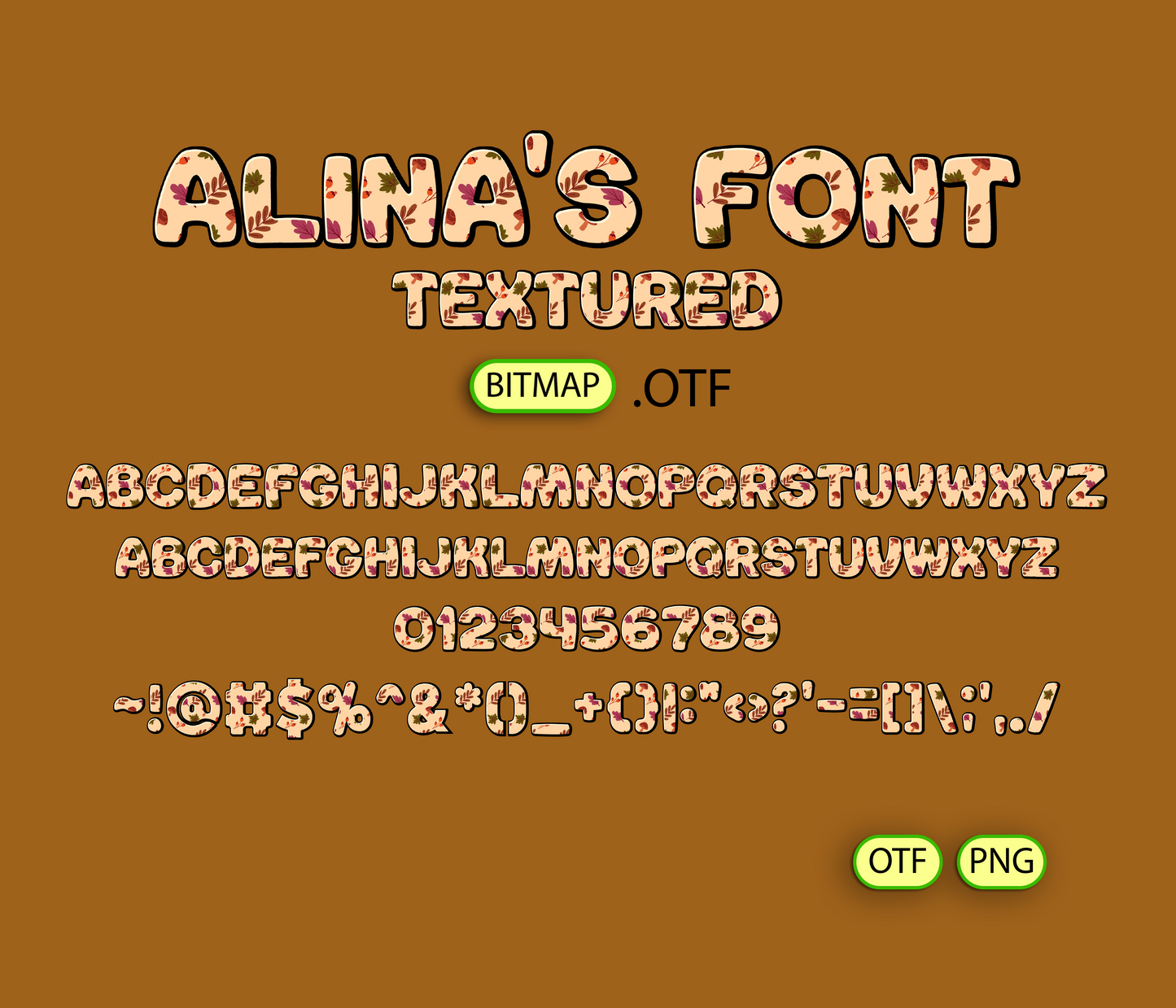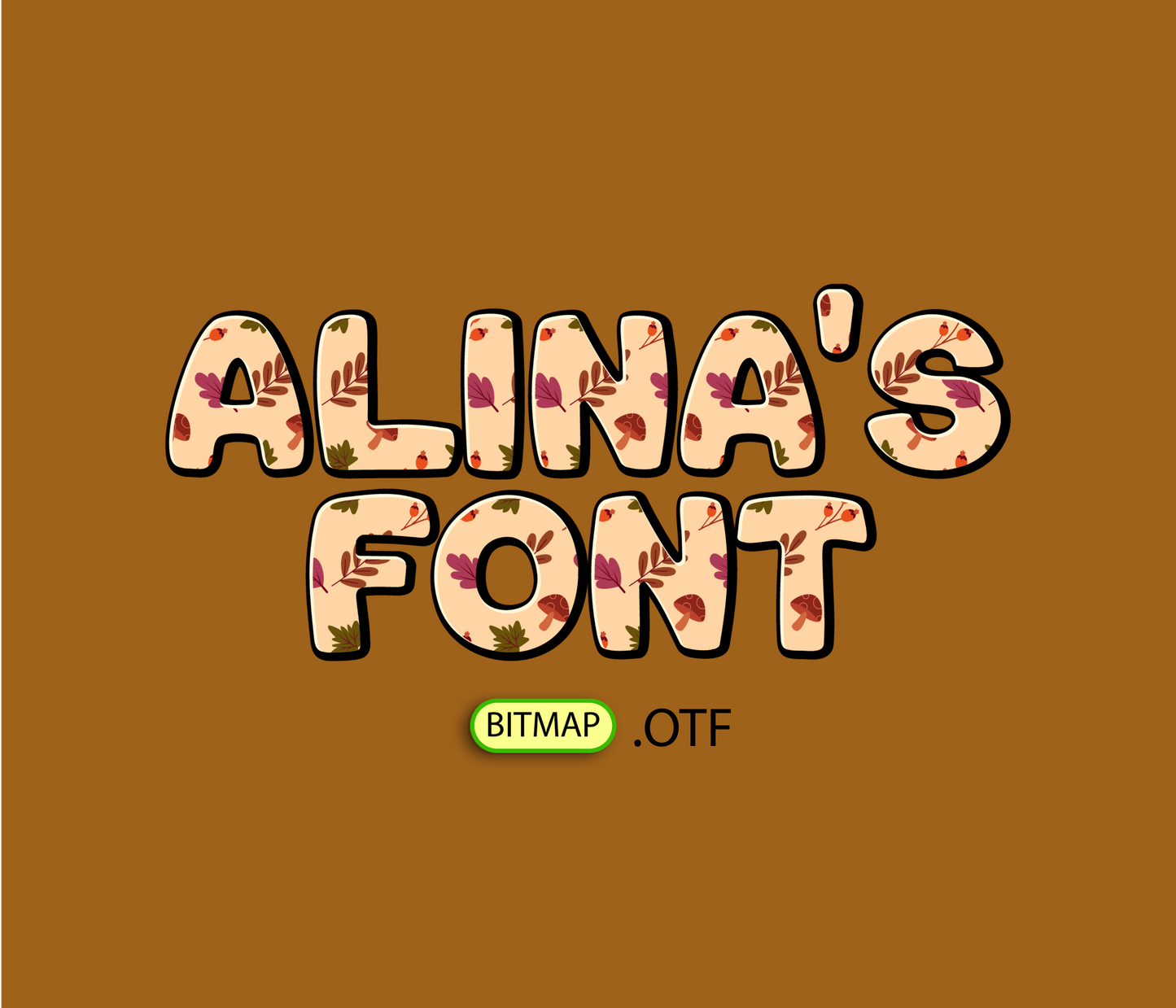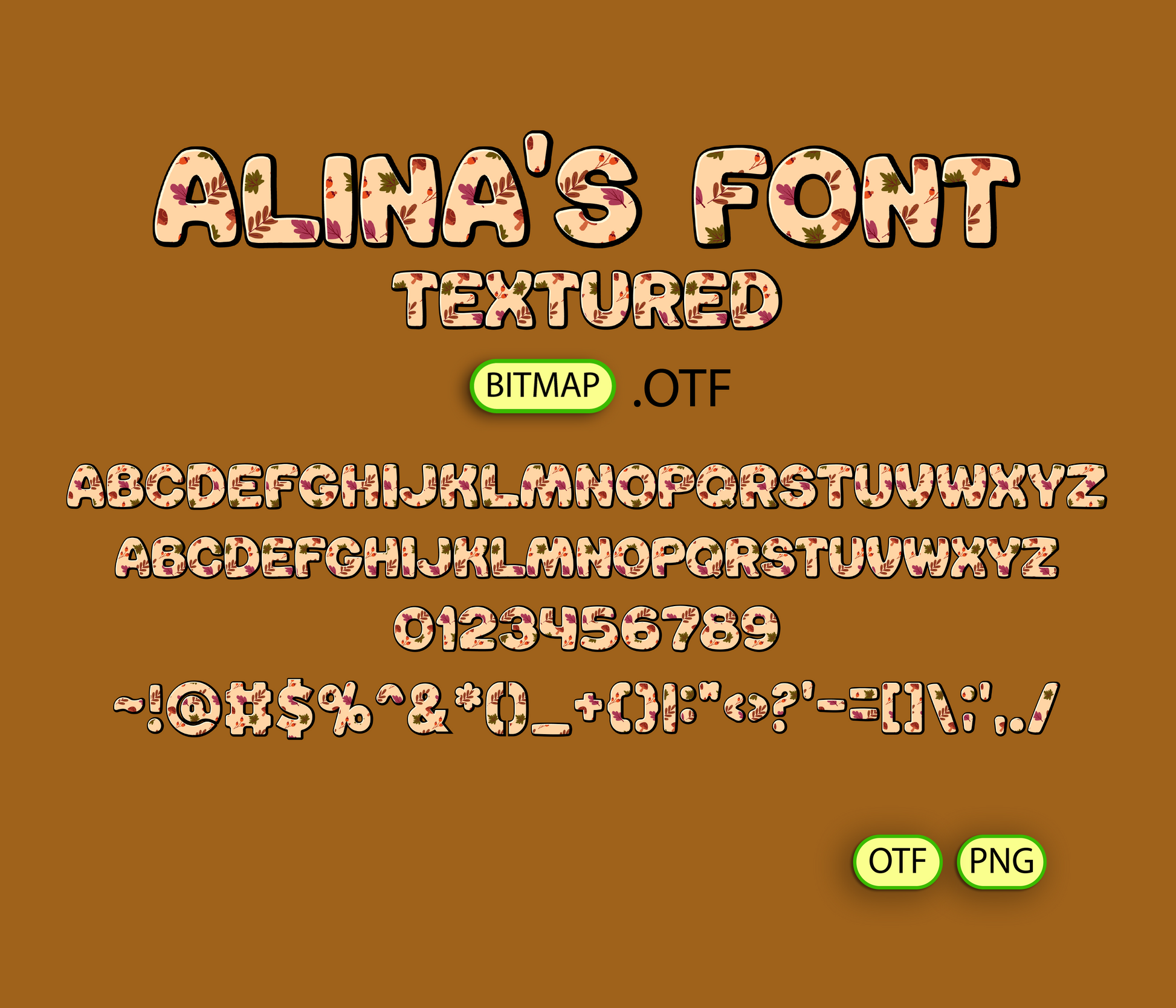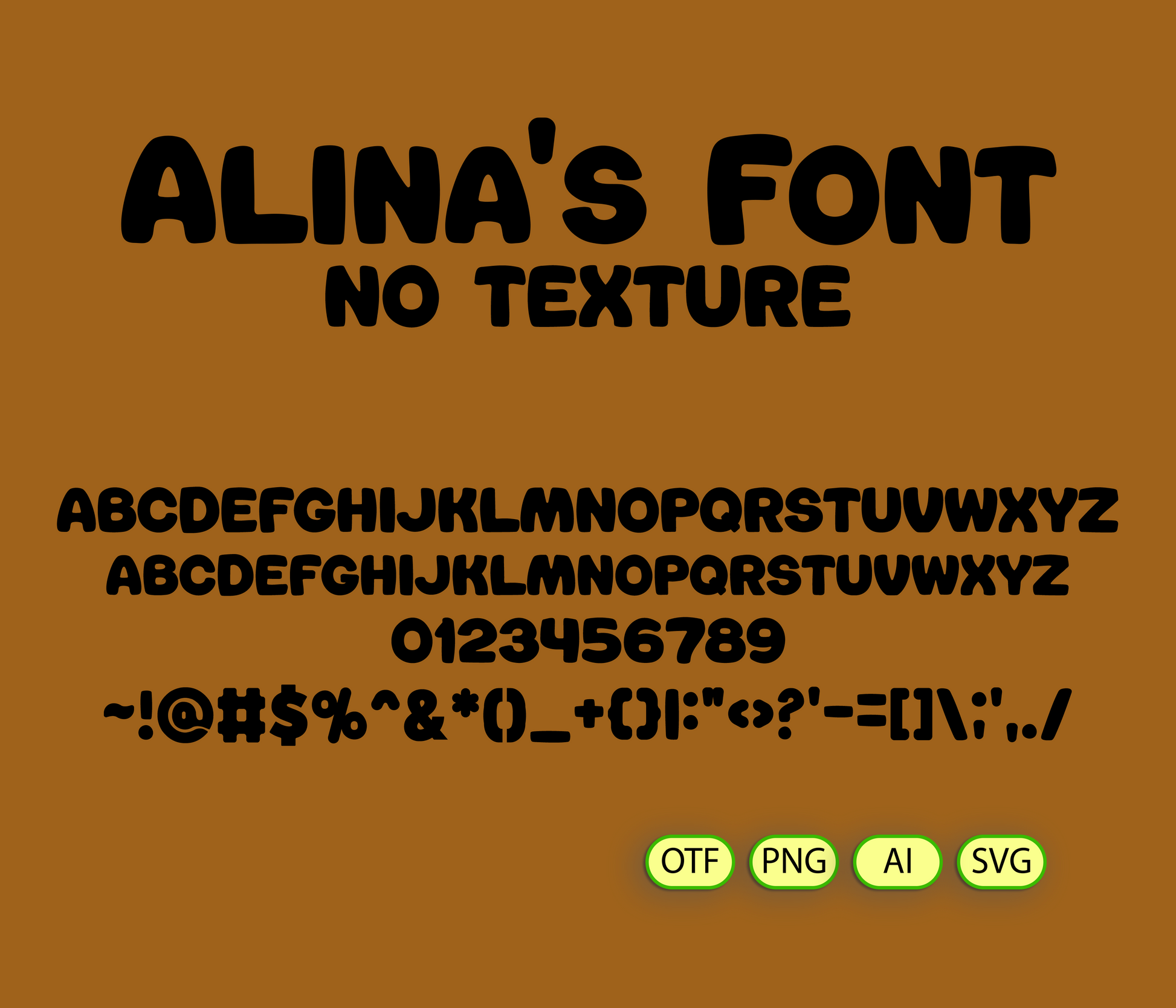
FREE Autumn Pattern Font
FREE Autumn Harvest Pattern Font
Step into the rich, golden world of falling leaves with our Autumn Harvest font, capturing the essence of crisp mornings and warm seasonal colors. Perfect for seasonal celebrations, festival organizers, greeting card designers, and creative professionals, this font brings the cozy, inviting spirit of autumn to your projects. Create seasonal invitations, harvest-themed merchandise, or digital content with the warm, earthy energy of fall foliage and autumn gatherings.
Our Autumn Harvest font features elegant, natural curves and leaf-inspired characters reflecting the changing seasons and harvest abundance. Ideal for:
Our Autumn Harvest font includes textured and non-textured variants, ensuring compatibility with all software, including Canva. This feature allows easy incorporation into designs for users of all skill levels.
Many seek an online font generator to mimic the look of the Autumn Harvest Font. Steer clear! No generator can match the quality of our font, which comes in two versions: a textured colored font and a simple version, perfect for cutting machines.
Our font pays tribute to the magical transformation of autumn, empowering your designs with its warm and inviting spirit. Whether crafting seasonal materials, designing harvest-themed merchandise, or adding a cozy touch to personal projects, this font communicates the beauty and abundance of fall. Ready to inject autumn's golden glow into your creations? This font is your key to seasonal, impactful design.